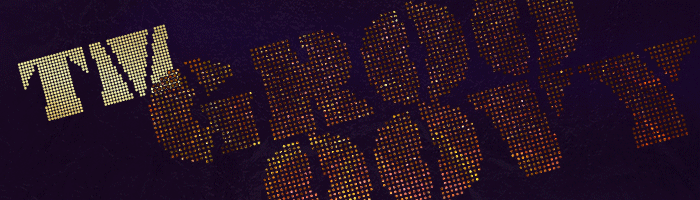
@thalamic - Wonderful design!  At the right zoom level, the gaps between the dots remind me of the old 2-color "fill patterns" from the DOS days...  ;^)